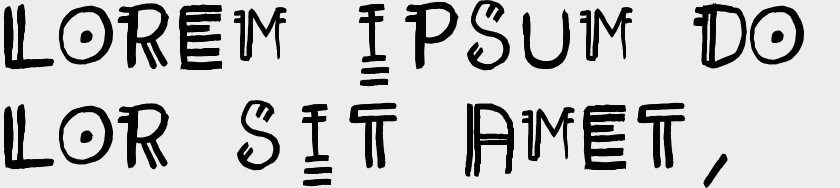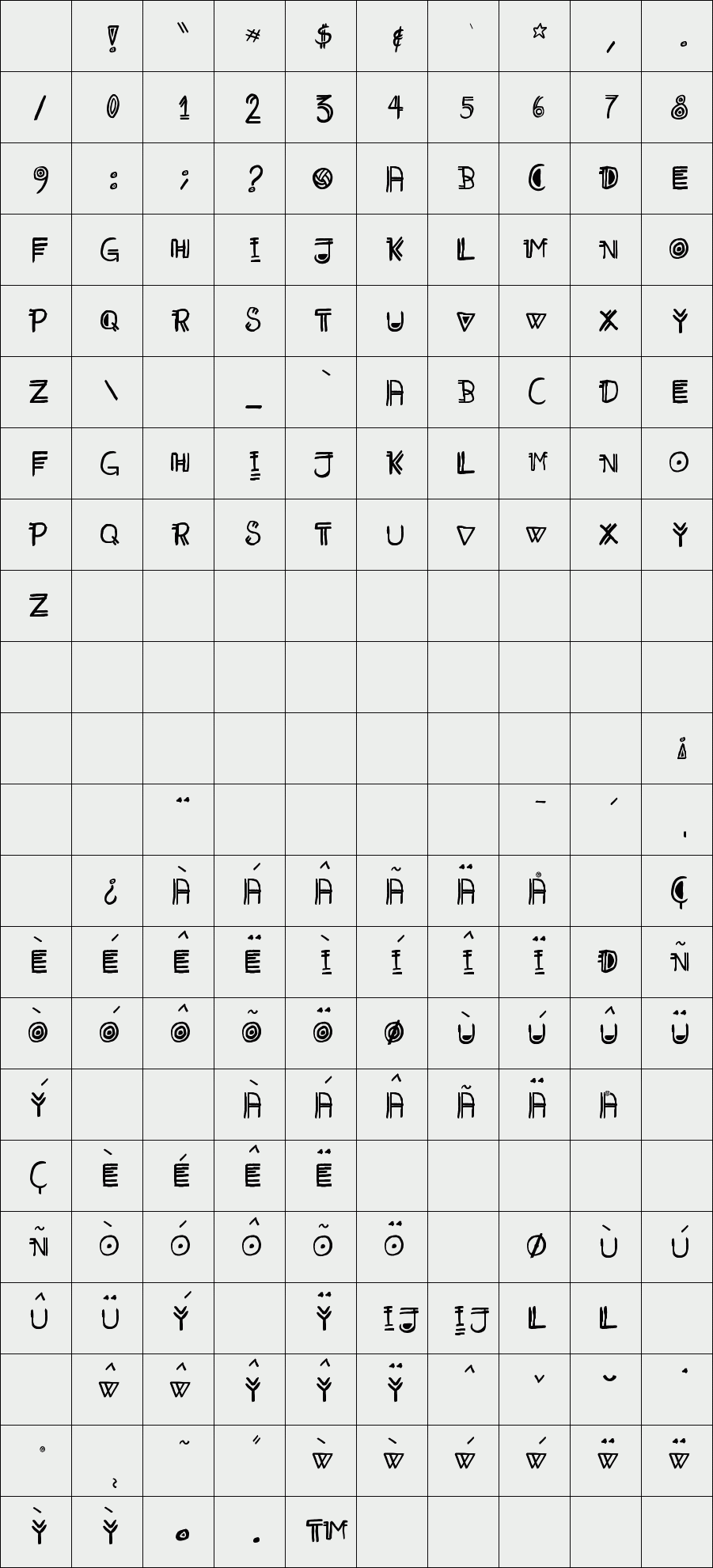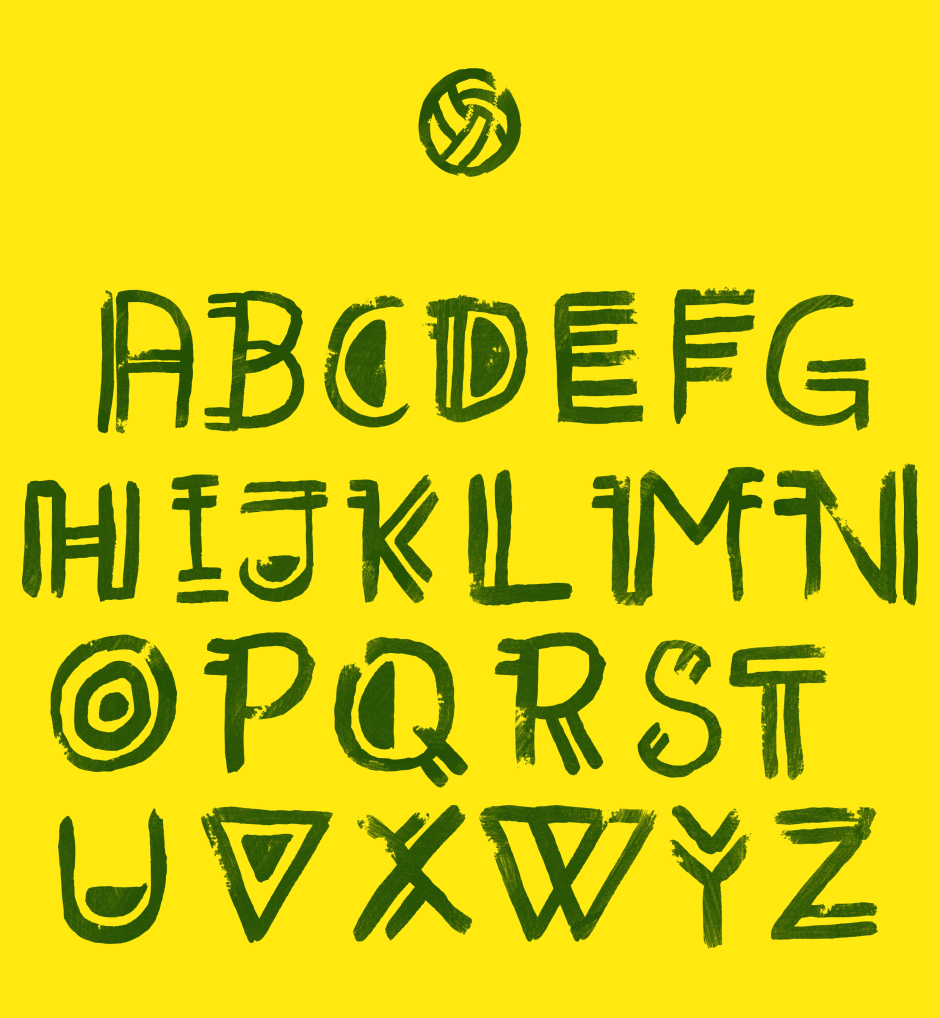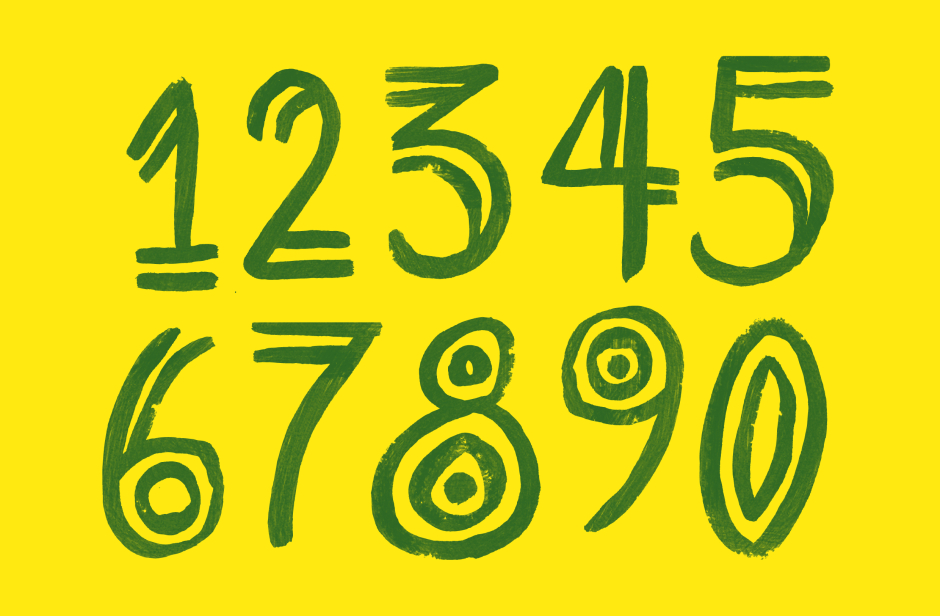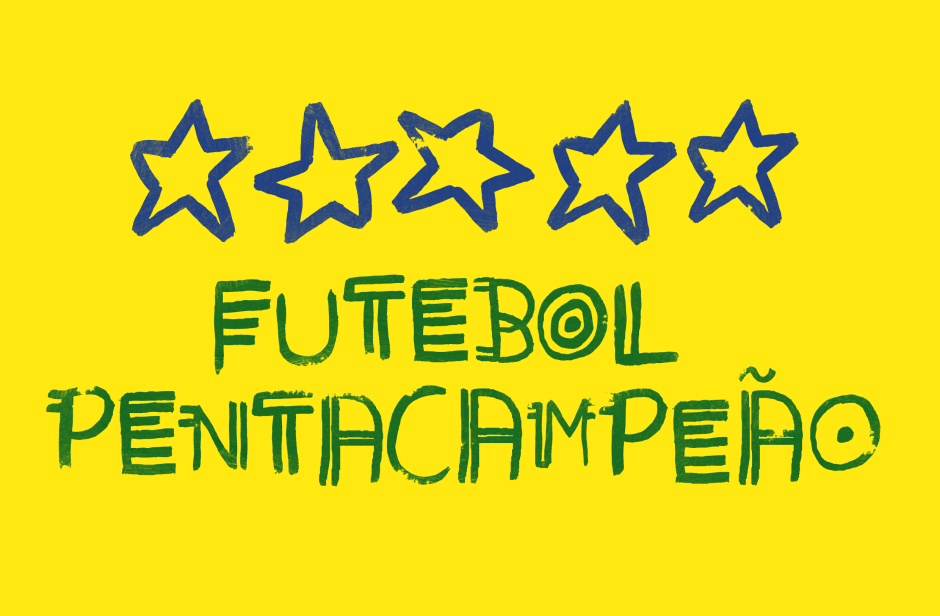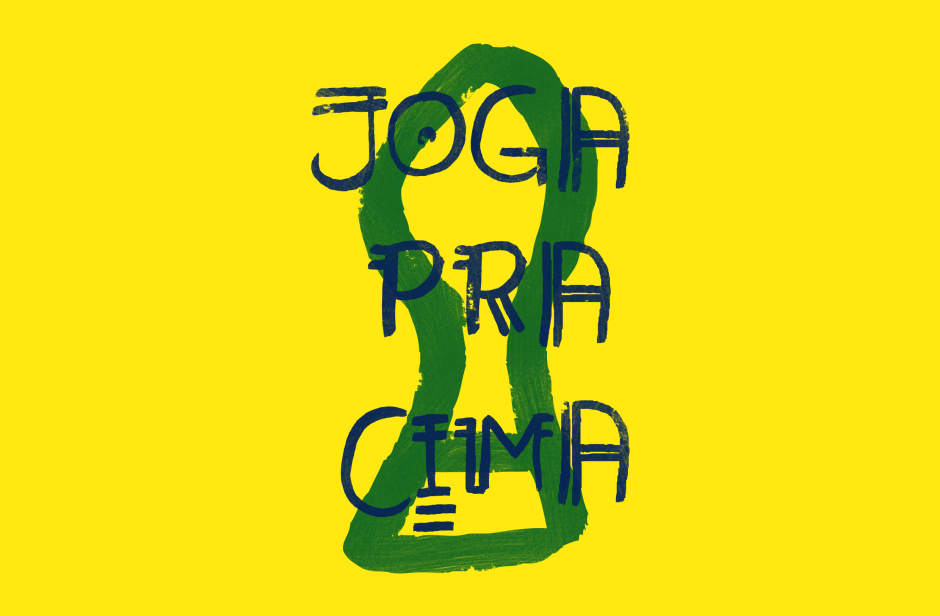
Copa
/ Copa Type
Copa is a brazilian type inspired by street paintings that Brazilians often do in times of World Cup. It's possible to recognize this popular culture with huge presence in Brazilian creative people, which brings to the type bars and irregular shapes the message of joy, fun and hope that Brazil shows when painting the streets to support the national team. The name Copa (from World Cup) was chosen because it embodies this hope when we're getting home a World Cup: the search for a sixth title (Hexacampeonato, in portuguese). Using the identity of Brazilian team, like green, yellow, blue and white, The type shows a very freely and very different ways, so that typography is based on the variation that brings unity to the project: the irregularity of a multicultural message.
The project brings the typography created by Ricardo Carvalho supported by illustrations made by Henrique Mamede
Designer: Ricardo Carvalho